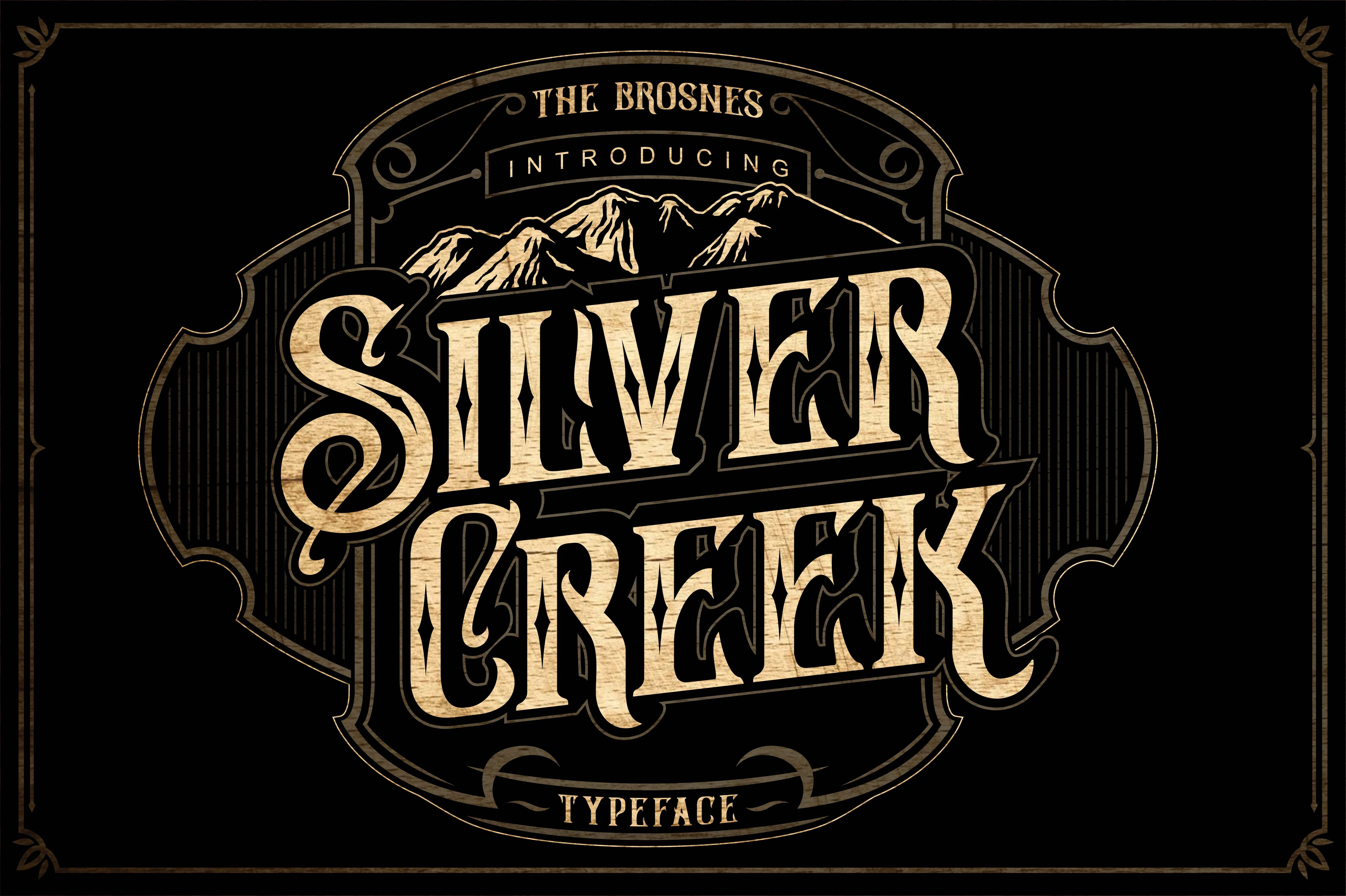
Silver Creek Typeface
Silver Creek Typeface is the new font from The Brosnes Design Co. Inspired by vintage sign painting, poster and label that have a strong shapes so it will create more attention for people to look more closely.
Silver Creek Typeface comes with 4 font family (basic, line , star & shadow) includes a full set of capital and lowercase letters, as well as multi-lingual support, currency figures, numerals, and punctuation.